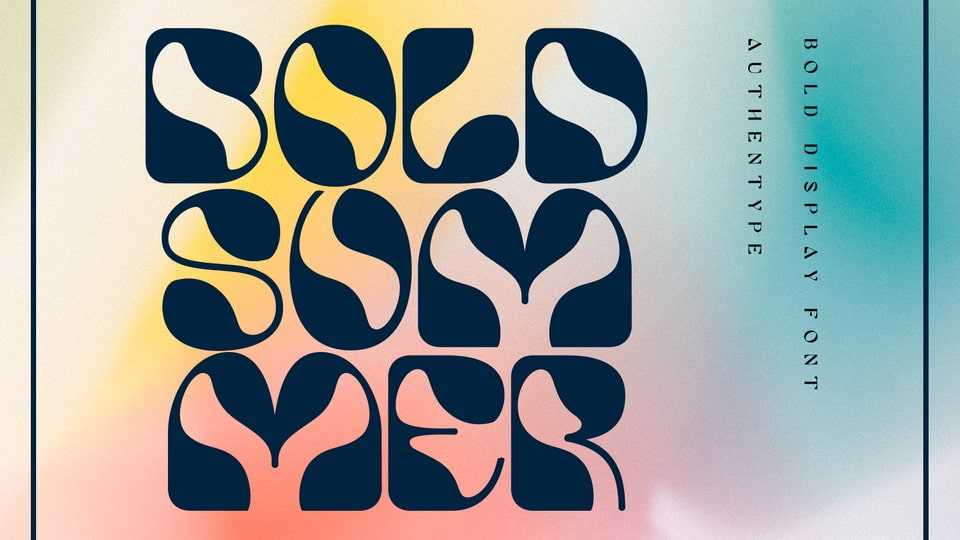
Download Bold Summer font, a bold display typeface for happy projects. This bold, cheerful font is perfect for any of your summer projects!
Designer: Authentype